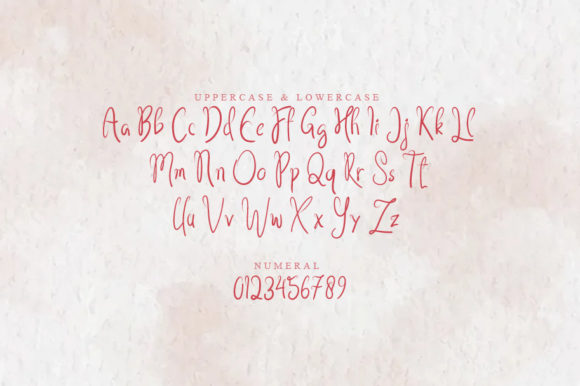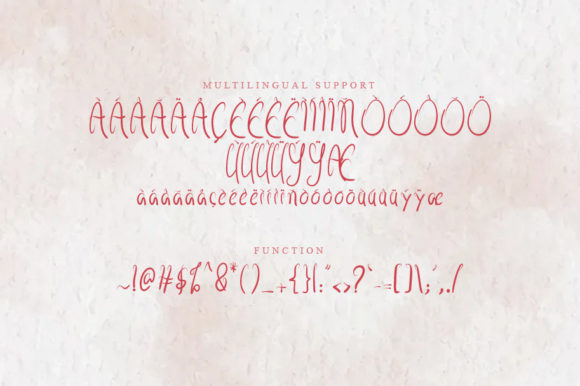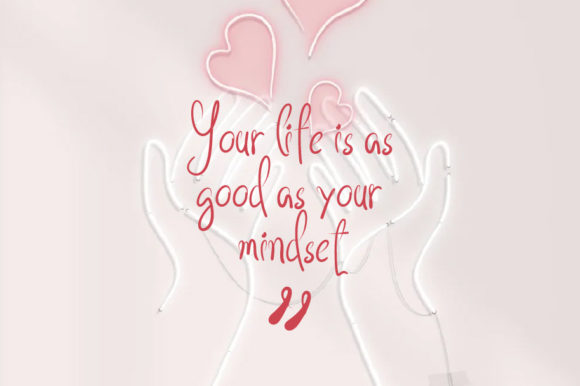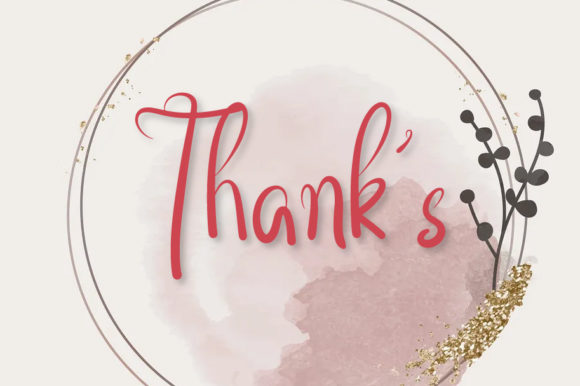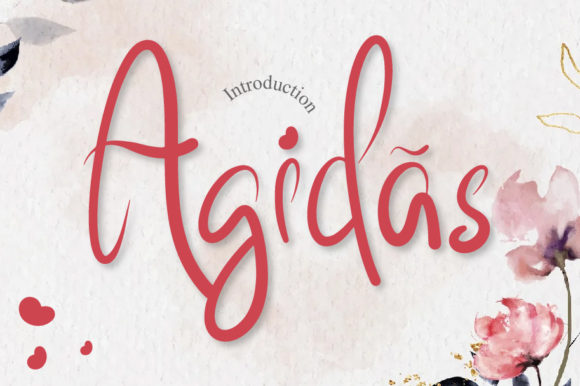
Discover the Charm of Agidãs Font: Elevate Your Designs with a Unique Handwritten Style
In the world of typography, fonts play a crucial role in conveying the tone and personality of a design. For designers and crafters looking for a typeface that stands out from the crowd, Agidãs Font is an excellent choice. This simple yet neat lettered handwritten font has gained popularity for its natural and unique style, making it incredibly versatile for a wide range of design projects.
What Makes Agidãs Font Special?
Agidãs Lining is characterized by its effortless, handwritten charm. Its clean lines and simple letterforms give it a neat appearance that is both modern and approachable. The font’s natural flow and unique style make it perfect for designs that require a personal touch. Whether you’re working on a branding project, crafting a social media graphic, or creating a custom invitation, Agidãs Font can add a distinctive flair that sets your work apart.
The true beauty of Agidãs Font lies in its versatility. Its neutral yet charming style allows it to seamlessly integrate into various design contexts. Here are just a few examples of how you can use Agidãs Font to elevate your designs:
• Branding and Logos: Create a memorable brand identity with Agidãs Font. Its unique style can help your logo stand out and make your brand more relatable to your audience.
• Social Media Graphics: Enhance your social media presence with eye-catching graphics. Agidãs Font’s readability and charm make it perfect for titles, captions, and quotes.
• Invitations and Cards: Add a personal touch to your invitations, greeting cards, and thank-you notes. The font’s handwritten feel gives your messages a warm, heartfelt look.
• Packaging and Labels: Make your products stand out on store shelves with custom packaging and labels featuring Agidãs Font. Its simplicity and elegance can elevate the perceived value of your products.
Why Designers and Crafters Love Agidãs Font
Agidãs Font has quickly become a favorite among designers and crafters for several reasons:
• Unique Style: In a sea of generic fonts, Agidãs offers a breath of fresh air with its distinctive handwritten style.
• Versatility: The font’s adaptability makes it suitable for a wide range of projects, from digital designs to print materials.
• Ease of Use: Agidãs Font is easy to read and works well in various sizes, making it a practical choice for both headlines and body text.
• Limitless Creativity: As the font’s description aptly puts it, “The only limit is your imagination!” Agidãs Font encourages creativity and experimentation, allowing designers to push the boundaries of their work.
Getting Started with Agidãs Font
Incorporating Agidãs Font into your design workflow is straightforward. Here are some tips to get you started:
• Experiment with Styles: While Agidãs Font has a unique style, you can still experiment with different weights, colors, and textures to match your design’s mood.
• Pair with Complementary Fonts: For projects that require multiple fonts, try pairing Agidãs Font with complementary typefaces that enhance its natural beauty.
Agidãs Font is more than just a typeface; it’s a design tool that can transform your projects with its simple yet unique handwritten style. Its versatility, readability, and charm make it an excellent addition to any designer’s or crafter’s toolkit. So why settle for ordinary when you can create something extraordinary with Agidãs Font? Let your imagination run wild and discover the endless possibilities that this exceptional font has to offer.